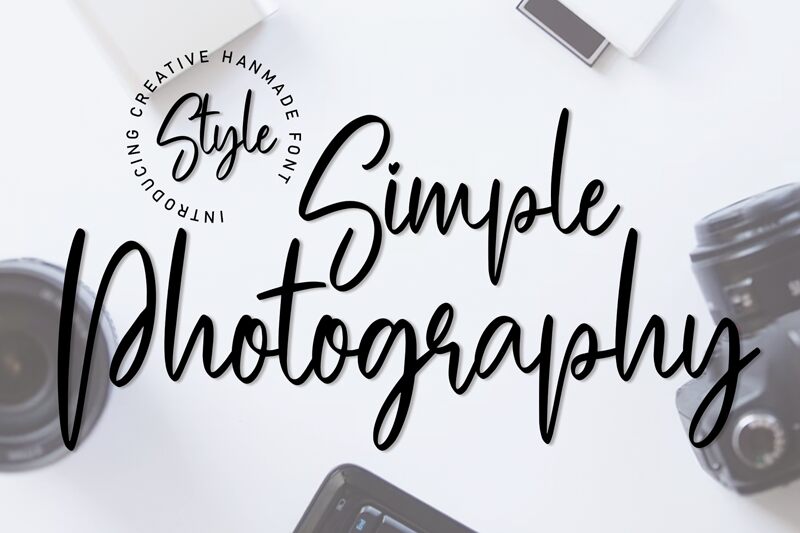
Simple Photography
Simple Photography font by Scratchones is a free handwritten script designed with cursive sleek letters. Its flowing lines, interconnected characters, and informal friendly mood makes it ideal for relaxed designs that require an elegant low profile wager. Each letter has moderate contrast due to the fluid strokes making up the visual appearance of this typeface.
Thanks to its exceptional quality and aesthetic appeal, Simple Photography can be used in many contexts including printed business cards, digital website interfaces, branding projects, signage design and more.